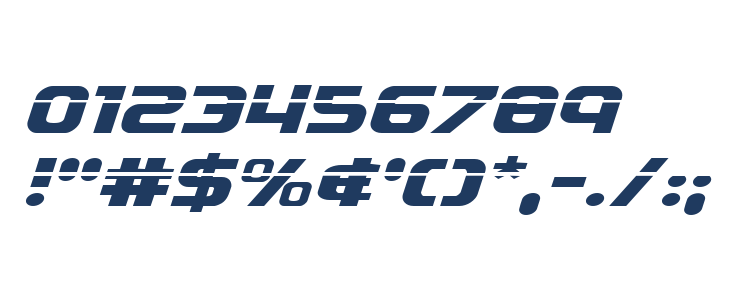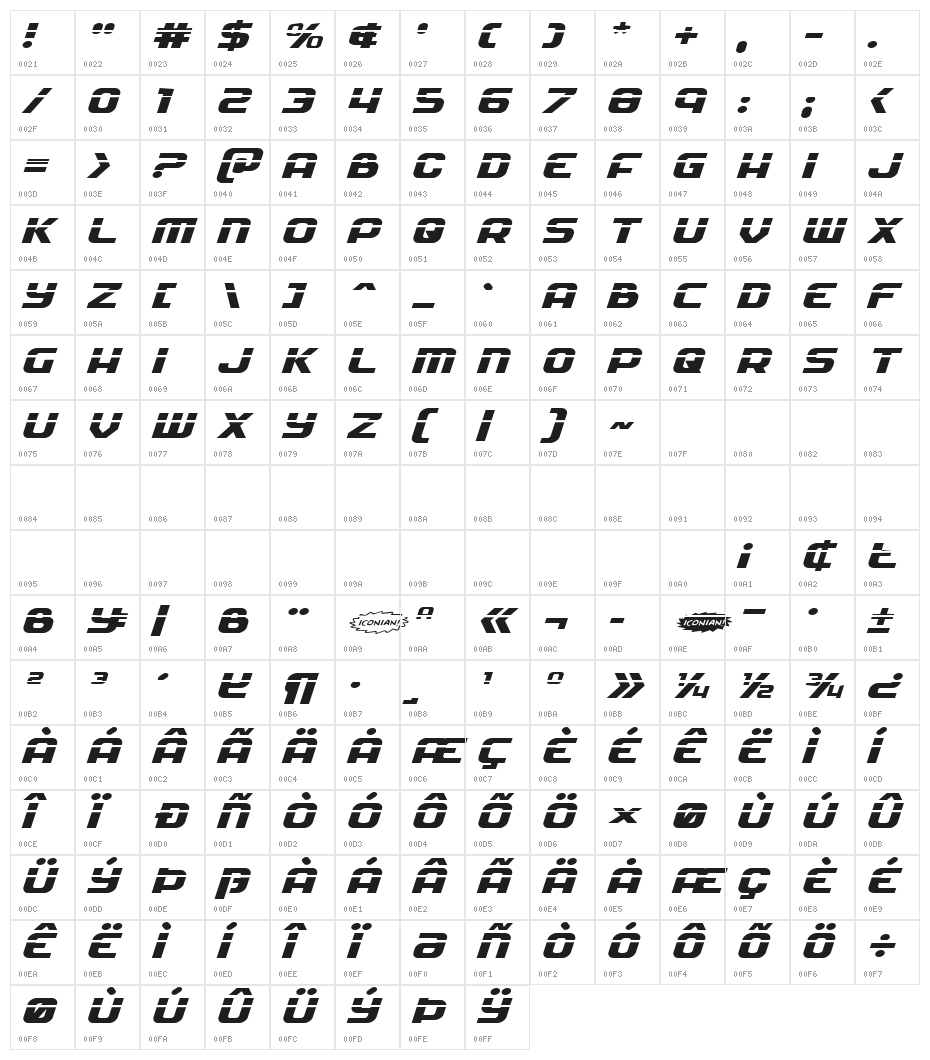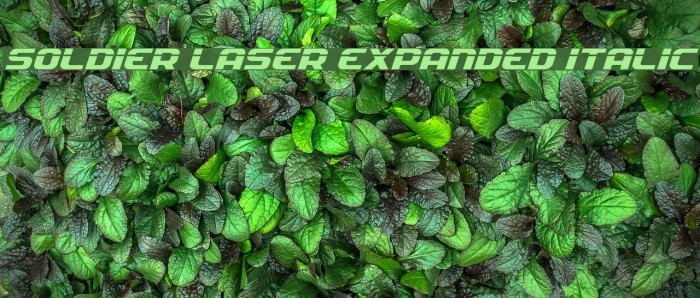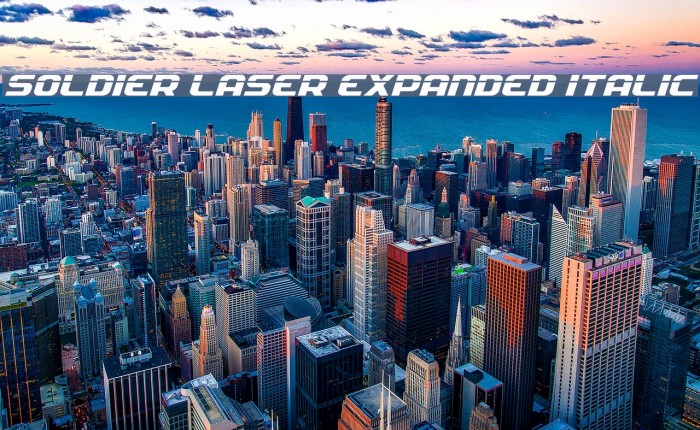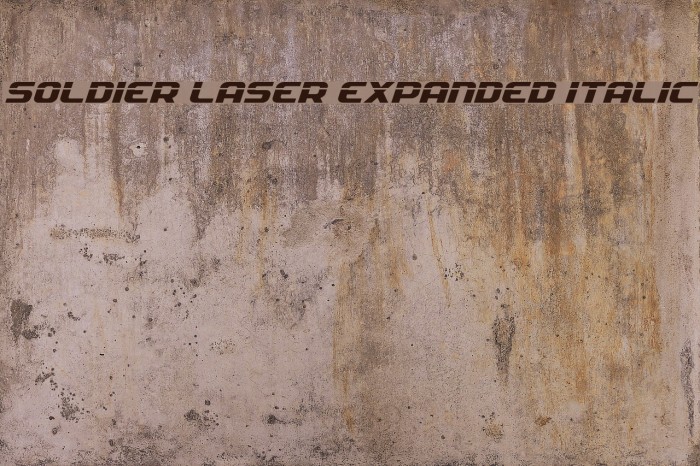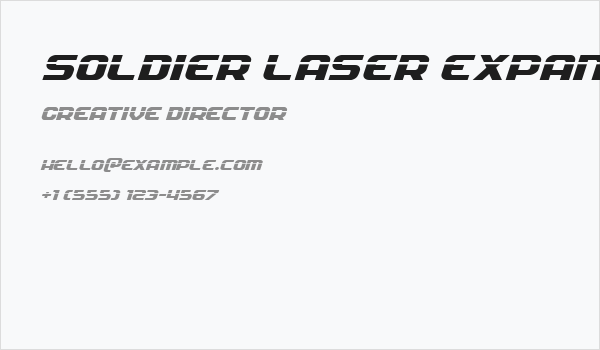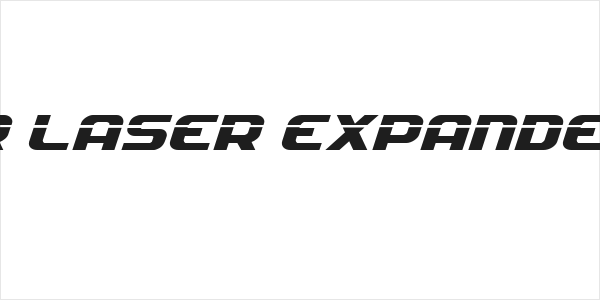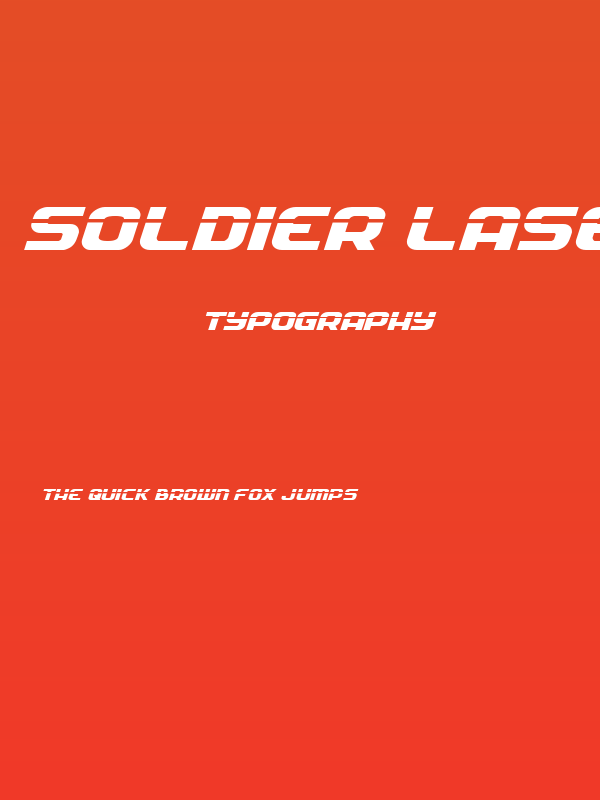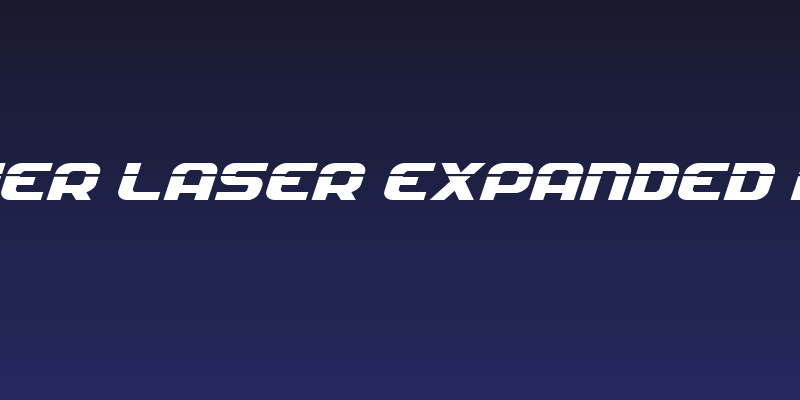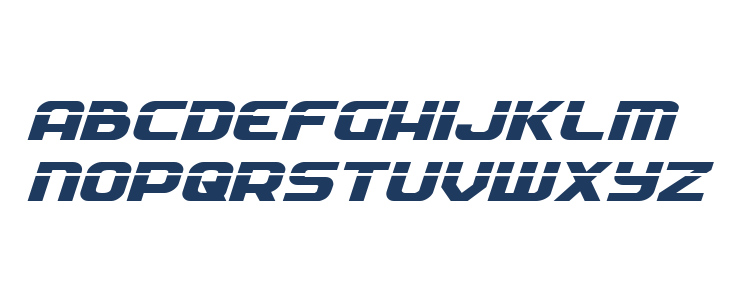
Soldier Laser Expanded Italic Font
Soldier Laser Expanded Italic Description
This font features a bold, futuristic design with a distinct italic slant, giving it a dynamic and forward-moving appearance. The characters are expanded, providing a sense of strength and stability. The geometric shapes and sharp angles contribute to its modern and technological feel. The uppercase and lowercase letters maintain a consistent style, with uniform stroke widths that enhance readability. The numbers and special characters are designed to match the overall aesthetic, making this font suitable for various digital and print applications.